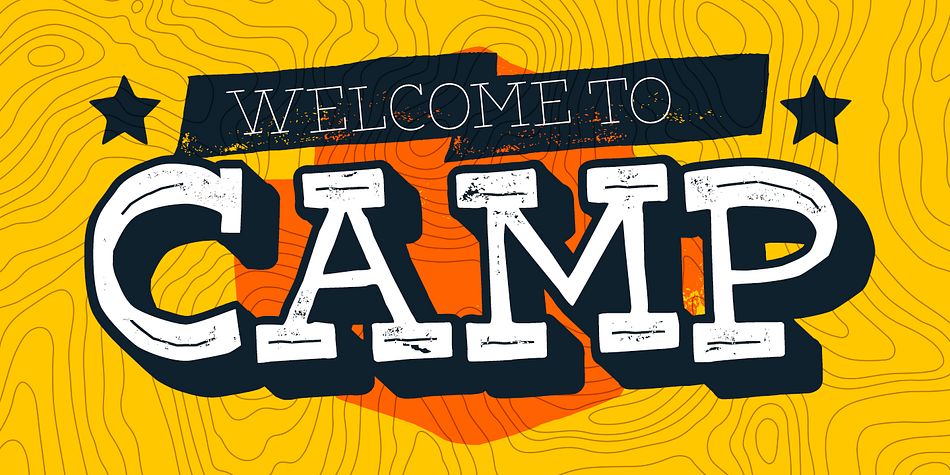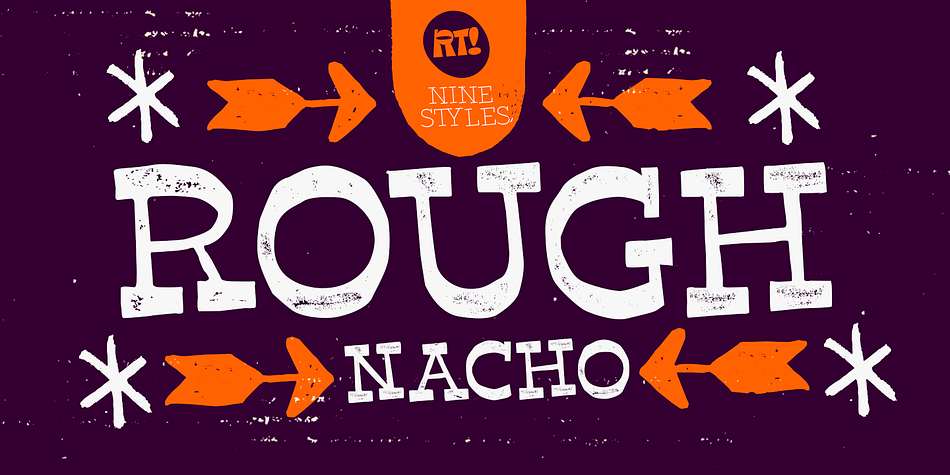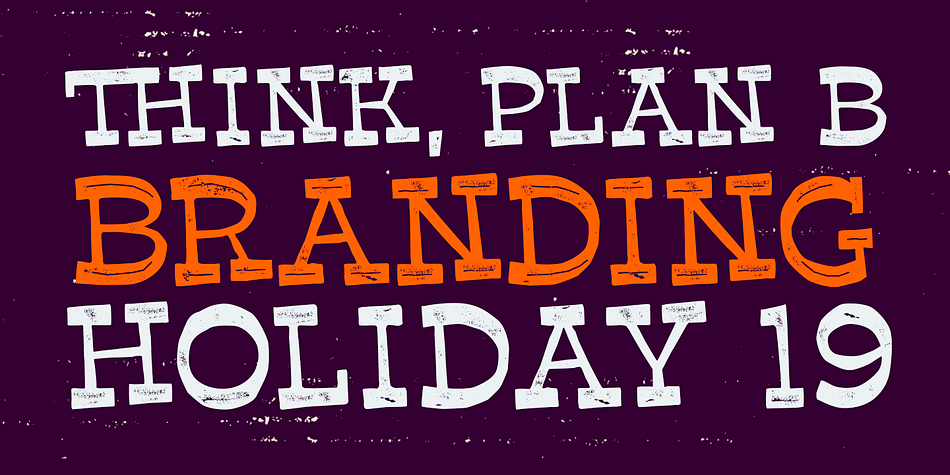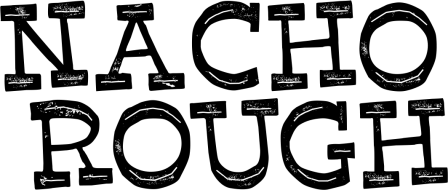
Designed by Rodrigo Salas, Nacho Rough is a hand display and dingbat font family. This typeface has nine styles and was published by Rodrigo Typo.
Nacho Rough!
A dirty version accompanied by the Thin version, including a set of dingbats.